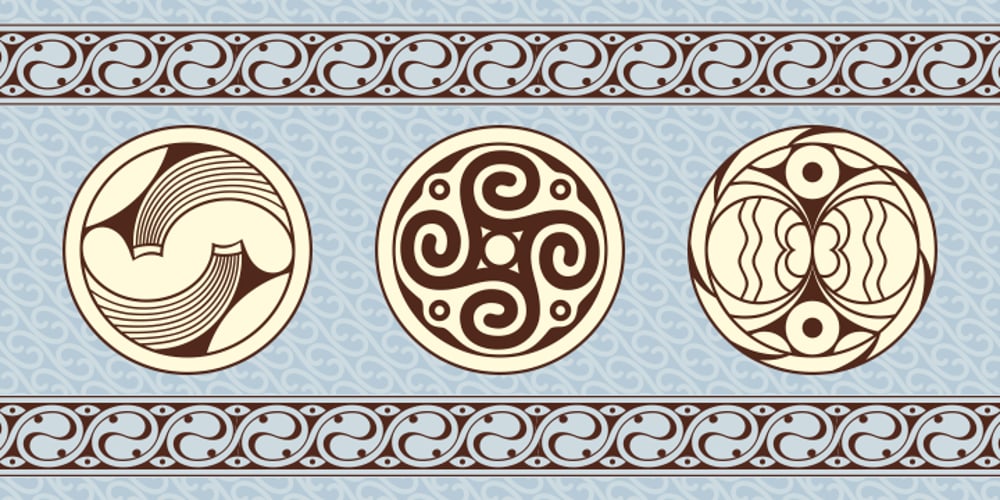
Trypillya 2D
Trypillya 2D font
Trypillya 2D Font Family was designed by Lukyan Turetskyy and published by 2D Typo. Trypillya 2D contains 1 styles and family package options. This ornamental font is the interpretation of ornaments of Trypillya culture. Trypillya culture, or Cucuteni-Trypillya is an archaeological culture of neolithic times. Its name derives from the name of the village of Trypillya nearby Kyiv. This culture experienced its culmination between 5500 and 2750 BC. The Trypillians lived in the territories between the Carpathian Mountains and the Dniper River of the modern Ukraine, Moldova and Romania. Many interesting ceramics decorated with original geometric ornaments survived to amaze us. Its heritage is still a little unknown to the public and therefore the patterns that are reproduced in this font have no analogues in the digital format.